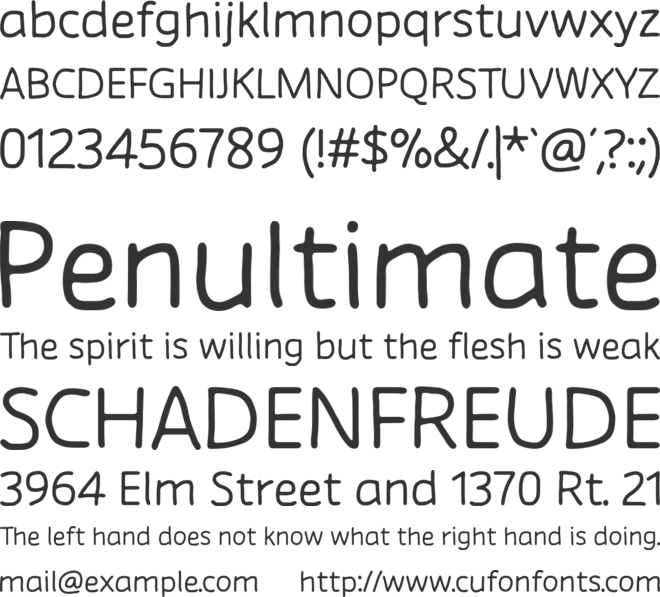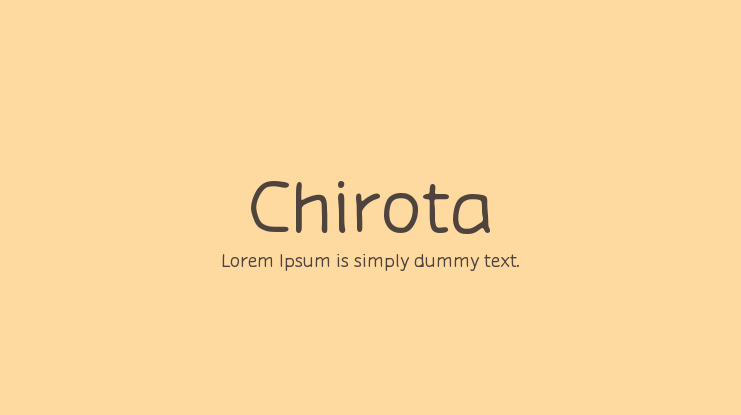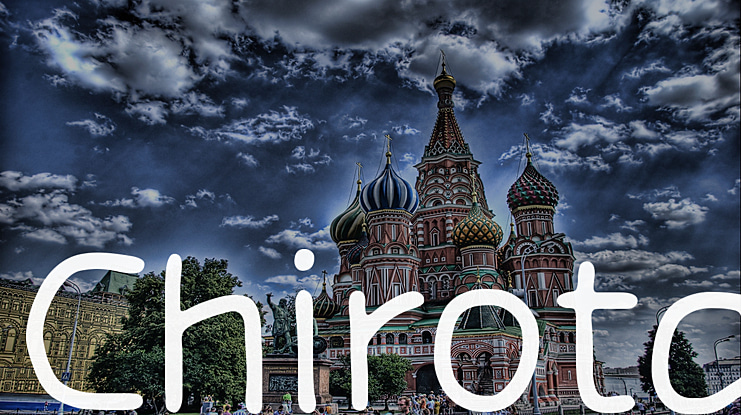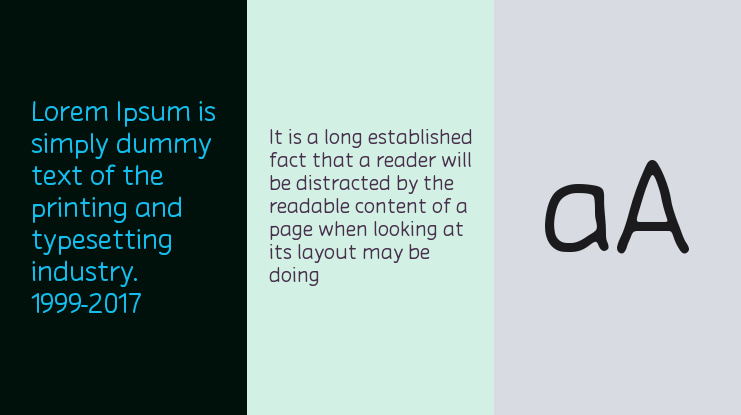
Chirota Font
Situjuh Nazara
Chirota is a handwritten font by Situjuh Nazara. Its clean lines with a wobbly look & feel makes Chirota specially unique. Its consistency of each characters which close to sans serif, and its well measure of metrics and kerning, this typeface is very easy to read.